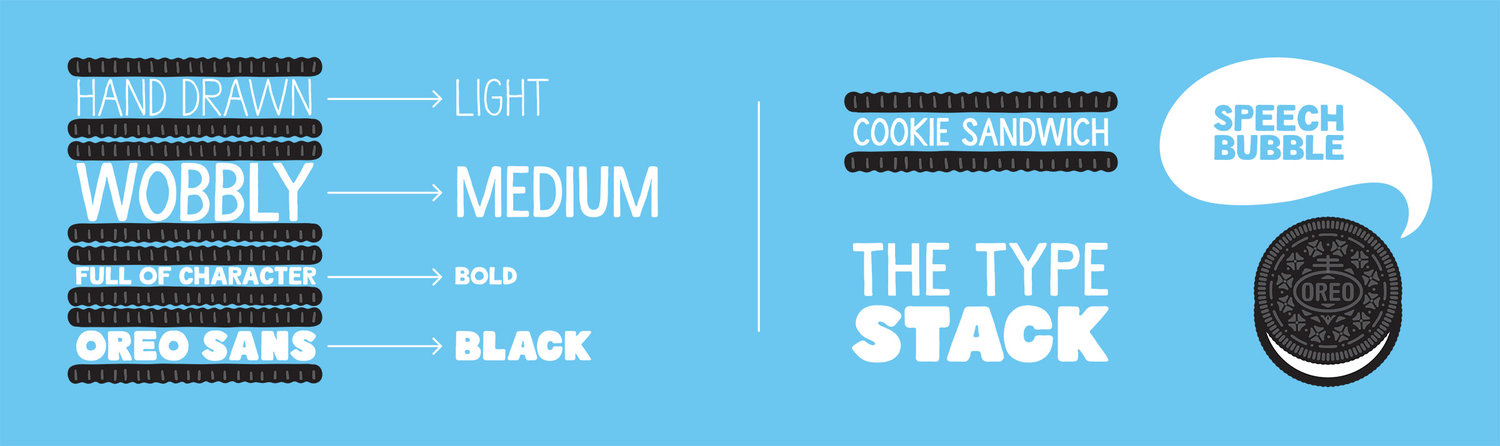
Oreo Sans Custom Font
This playful typeface is perfect for food brand packaging, dessert shop signage, children's product labels, sweet treat marketing, bakery branding materials, candy store graphics, fun restaurant menus, and delightful confectionery advertising campaigns. Oreo Sans Custom Font delivers irresistible charm in applications where sweet indulgence and playful enjoyment are essential for creating memorable brand experiences that evoke happiness and delicious satisfaction.
What makes Oreo Sans Custom Font so exciting is its perfect embodiment of sweet treats and childhood joy through typography. The font features rounded, friendly letterforms with delightful characteristics that instantly evoke the comfort and happiness associated with favorite desserts. Each character has been lovingly crafted to maintain excellent readability while expressing pure sweetness and playful energy. The typeface's appetizing personality creates immediate cravings and positive emotions, making it perfect for food brands that want to communicate indulgence, fun, and irresistible taste through their visual identity.
The Oreo Sans Custom Font includes delicious style variations: Regular, Bold, Light, and Filled versions. This sweet collection allows designers to create layered compositions and establish appetizing typographic treatments that capture the essence of delectable treats. Each style maintains the font's inherent sweetness while providing different emphasis levels for various confectionery applications and delightful design themes.
Whether you're developing dessert brand identities, creating sweet product packaging, or designing indulgent marketing materials, Oreo Sans Custom Font Free Download provides the irresistible appeal that connects with audiences seeking delicious experiences. Its appetizing character makes it particularly suitable for bakeries, ice cream shops, candy manufacturers, and sweet treat vendors. The font's joyful nature ensures emotional connection in both product packaging and digital applications, while its versatile design adapts beautifully to colorful, playful, and indulgent aesthetic approaches.
This delectable typeface represents the perfect choice for designers who understand the power of sweet typography in creating memorable, appetite-inspiring brand communication experiences.